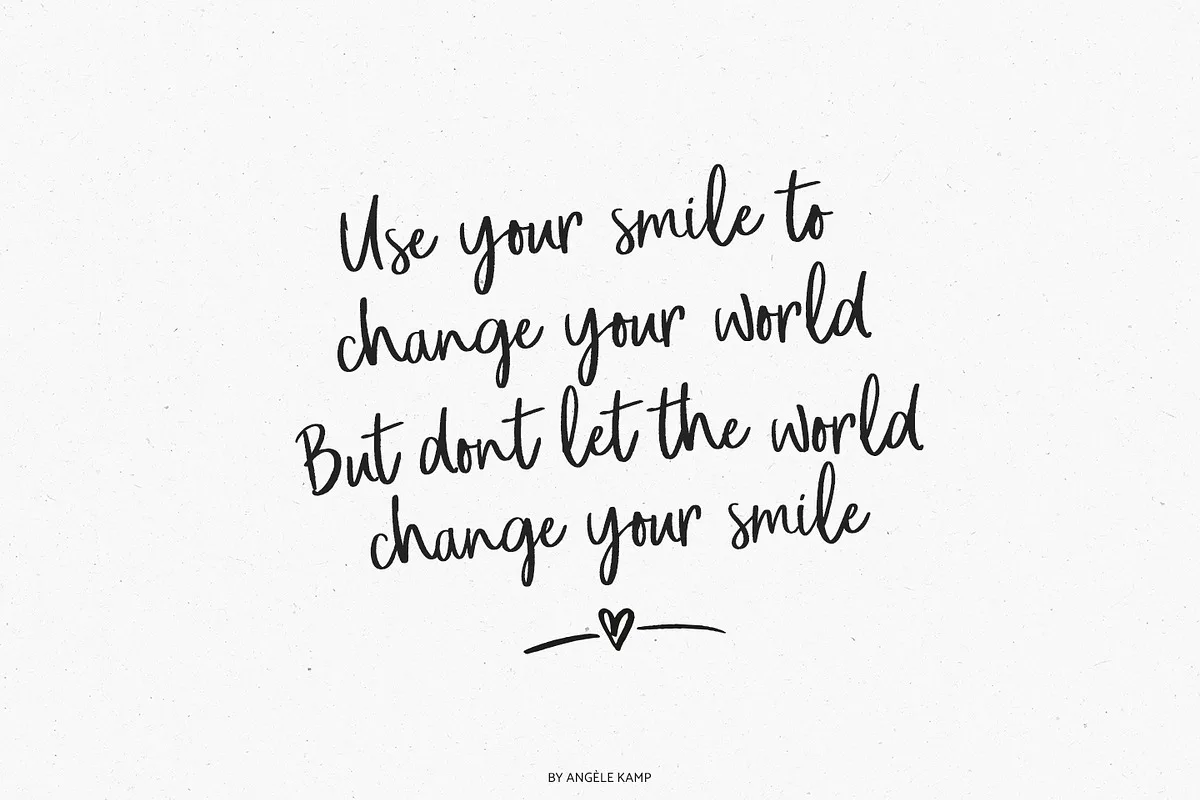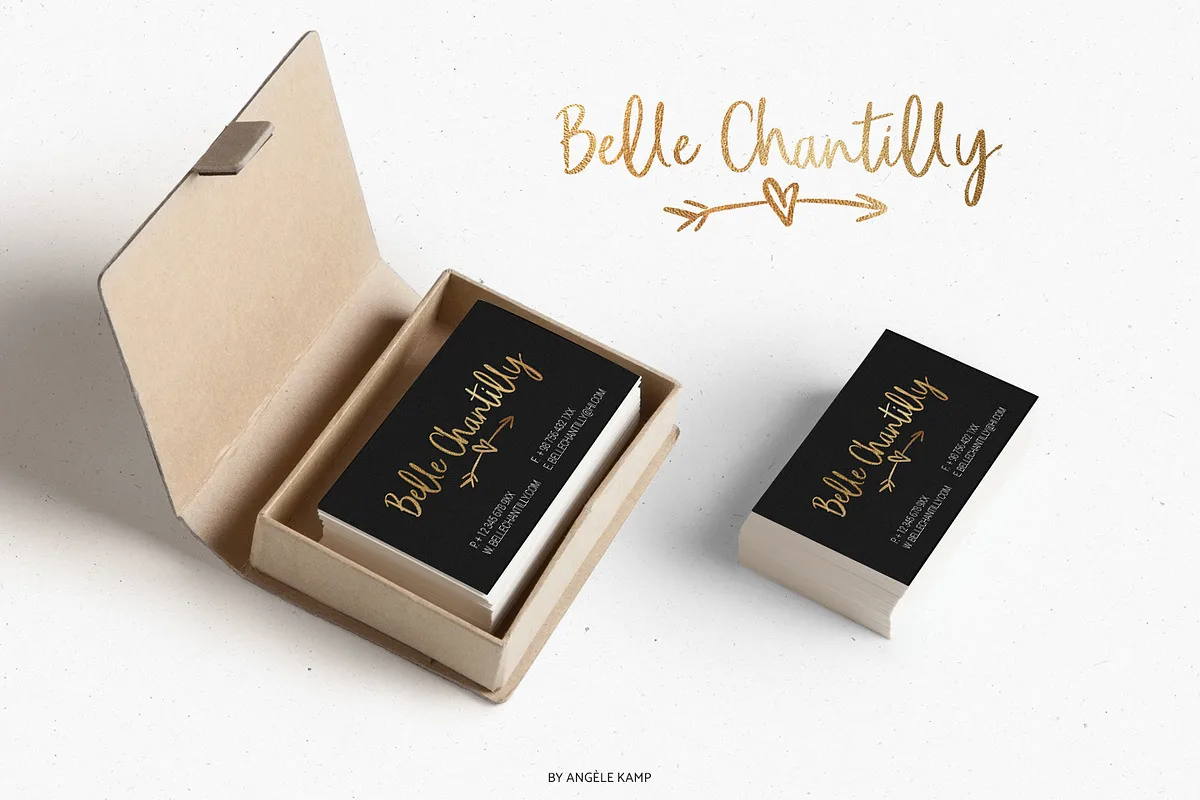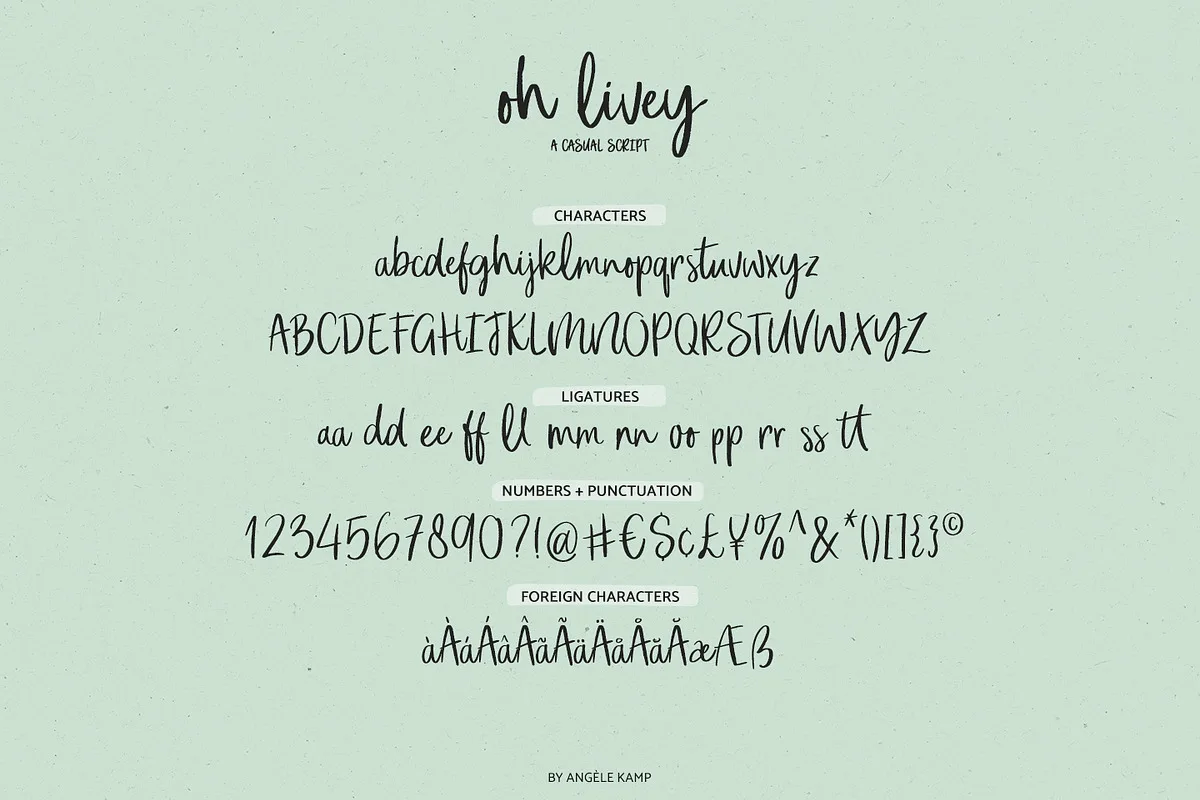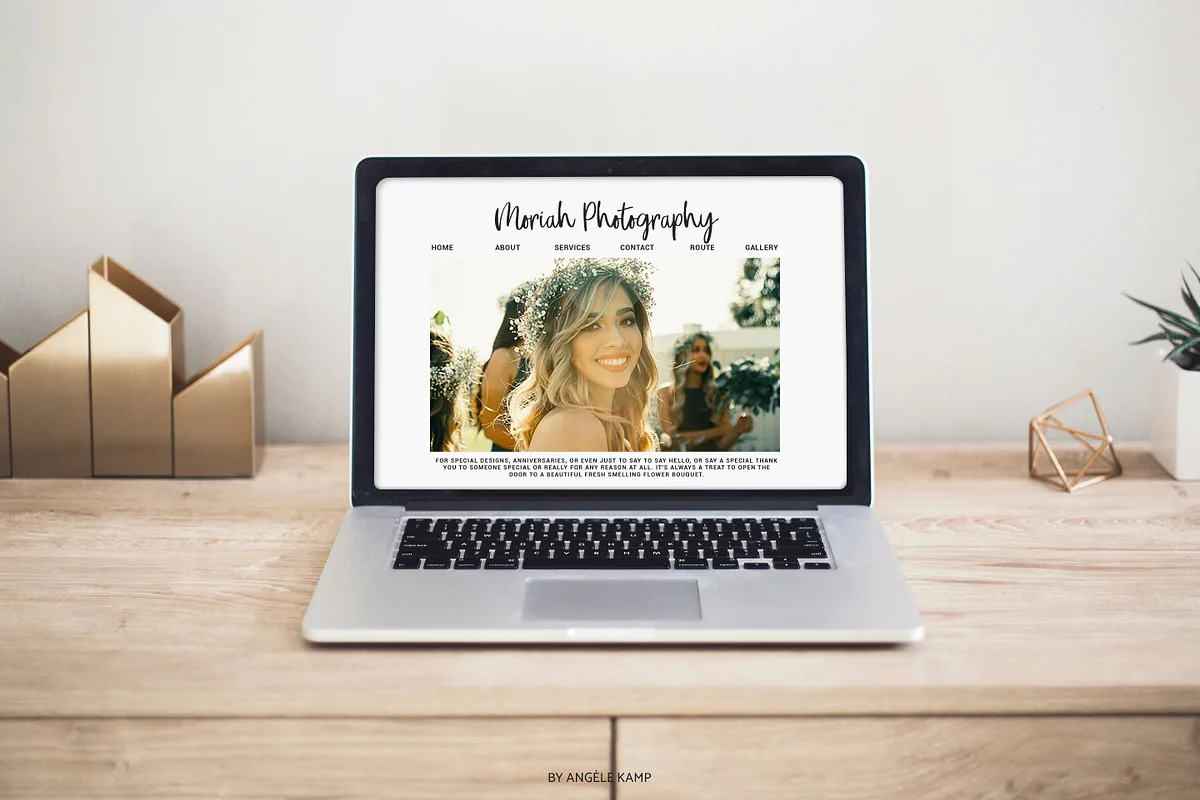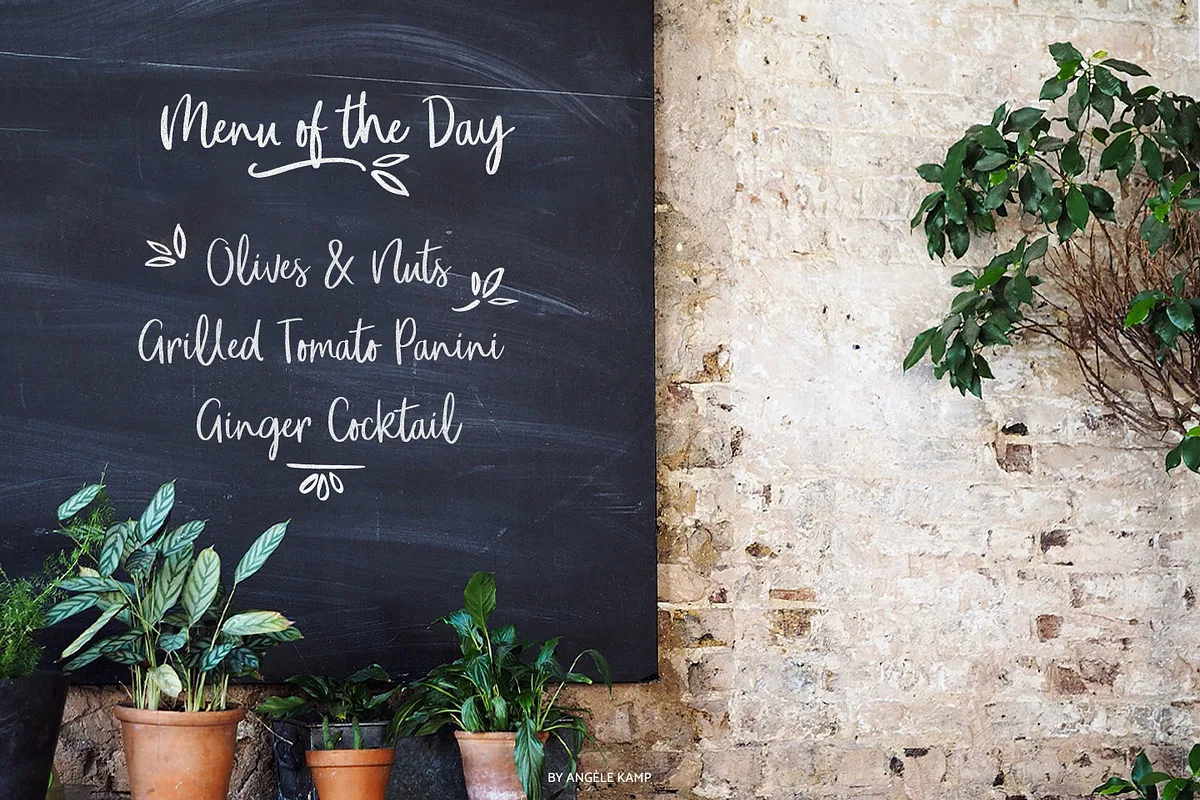
Oh Livey Font
Oh Livey is a brush script font that has a fun, modern vibe. Put it on everything from quotes and websites, and use the extra clipart to make designing so much easier and fun. It contains lots of ligatures which will give it that authentic handwritten feel.
Oh Livey font preview — sample text
Oh Livey font alphabet, numbers and glyphs
Oh Livey font style preview
Oh Livey font used in a design mockup
Oh Livey font detail preview